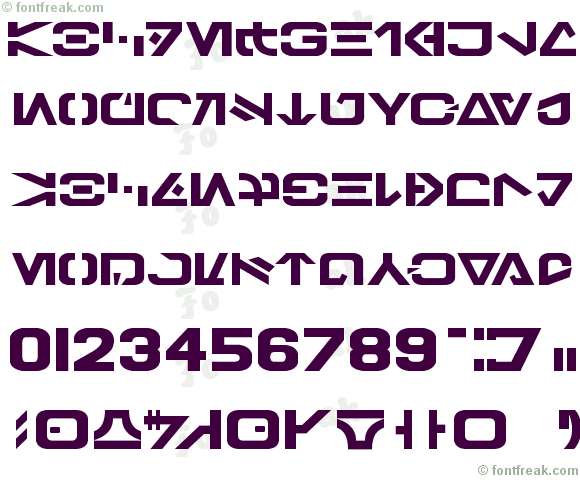
Galactic Basic
Galactic Basic is a striking display font created by Erik Schroeder, also known as Erik Stormtrooper. This unique typeface falls into the category of decorative fonts, characterized by its bold, futuristic design that draws inspiration from sci-fi aesthetics. The strokes are thick with a block-like appearance, lending an air of strength and modernity, while the sharp angles and geometric forms provide a sense of movement and dynamism. The overall spacing is well-balanced, making it easy to incorporate into various design projects without compromising readability.
This font is particularly well-suited for a variety of creative applications. Its distinctive style makes it an excellent choice for movie posters, especially in genres like science fiction or fantasy, where a bold visual statement is essential. Additionally, it can enhance the design of video game graphics, promotional materials, or merchandise, appealing to fans of the galactic theme. Small business owners looking to create eye-catching branding or advertising materials will find Galactic Basic to be a valuable asset. Content creators can also utilize this font for social media graphics, banners, and websites, adding a modern twist to their visual content.
The target audience for Galactic Basic includes graphic designers, small business owners, and content creators who appreciate unique typography that stands out. This font not only resonates with those looking for something fresh but also caters to fans of sci-fi and space themes.
What truly sets Galactic Basic apart is its ability to convey a sense of adventure and innovation. The combination of bold strokes, geometric shapes, and a galactic motif creates a visually captivating experience that is hard to ignore. With the Galactic Basic font free download, designers can easily access this creative tool to elevate their projects and captivate their audiences.